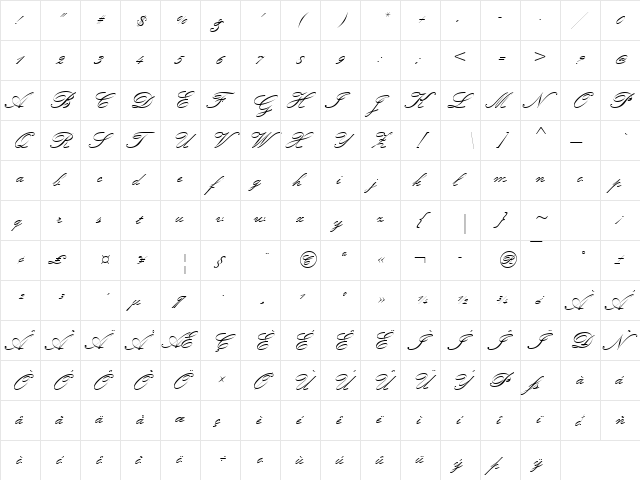
Kunstler Script Regular
Design Context for Kunstler Script Typeface
Kunstler Script brings a calligraphic fluidity to the page — its connecting strokes and expressive curves give it an unmistakably human quality.
Font Pairing: Combine Kunstler Script with a simple geometric sans for maximum contrast — the tension between flowing curves and clean structure is a classic typographic pairing.
Pro Tip: Pair Kunstler Script with a clean sans-serif for supporting text. The contrast between fluid script and geometric structure creates an elegant typographic hierarchy.